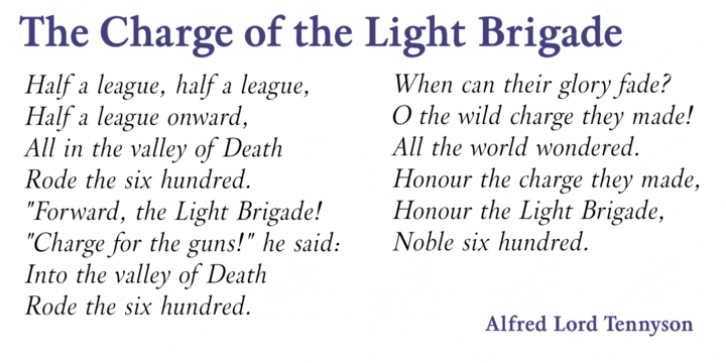
In searching for a Roman to use there were bits of Bembo,Times,Garamond etc. that I liked and bits that I did not. So I set out to take the best bits of all my favorite Romans and tried to create the ultimate Roman Typeface.